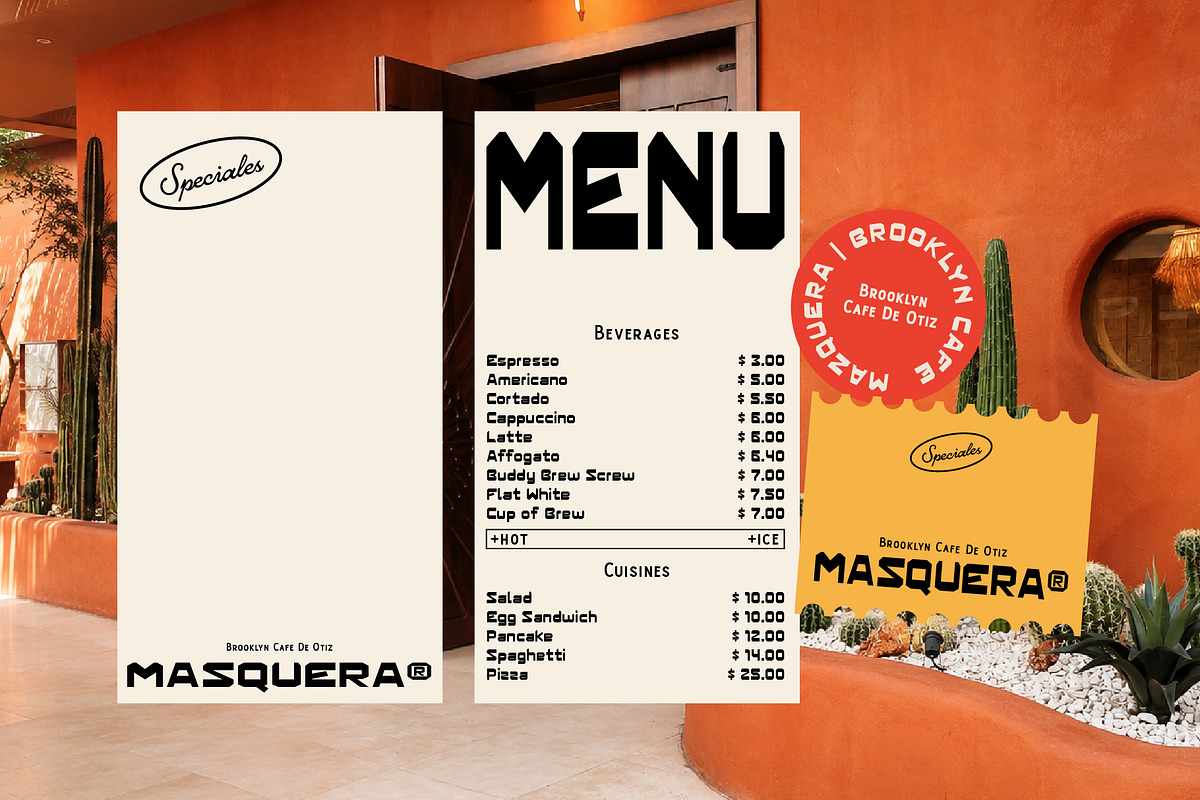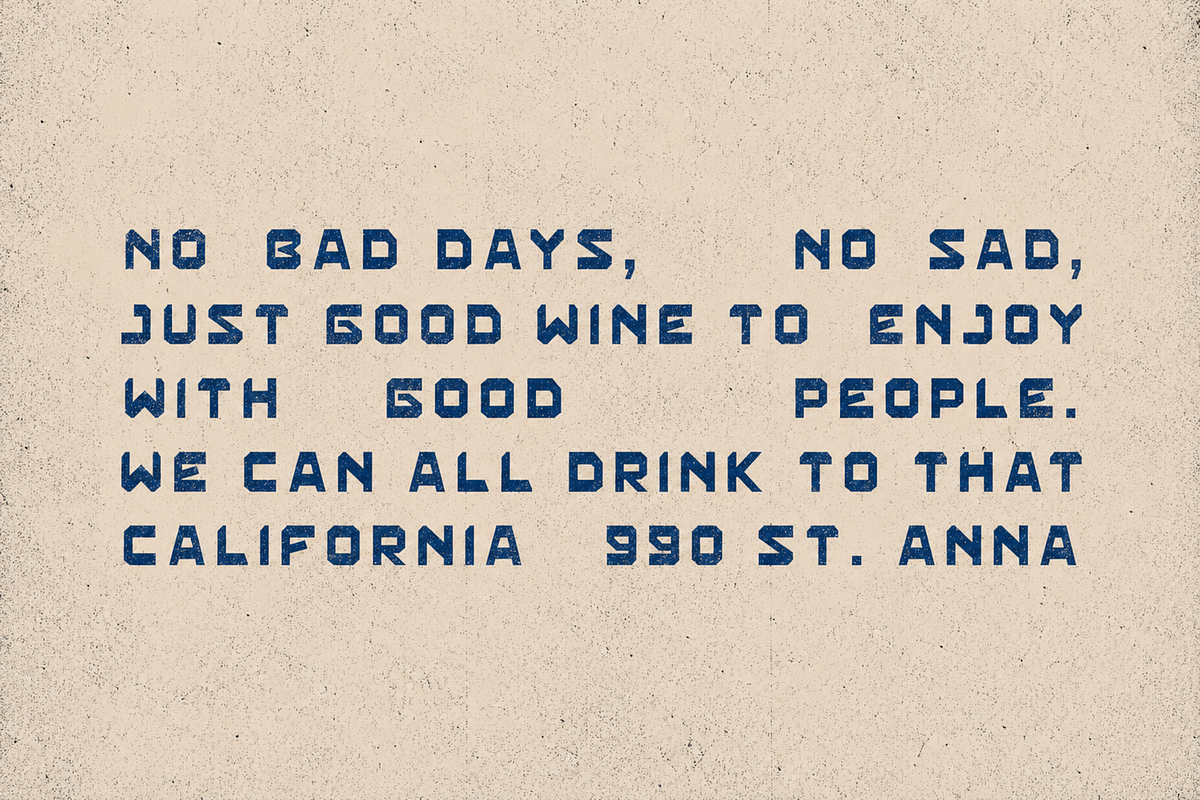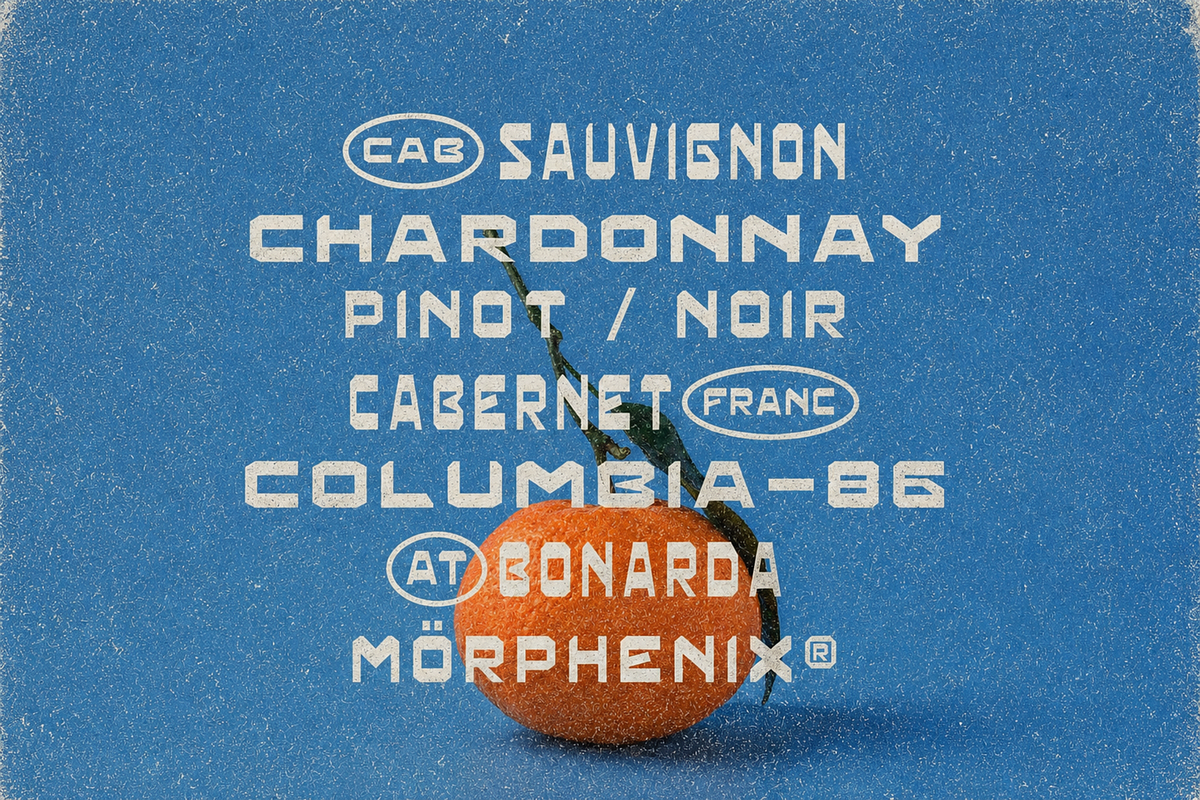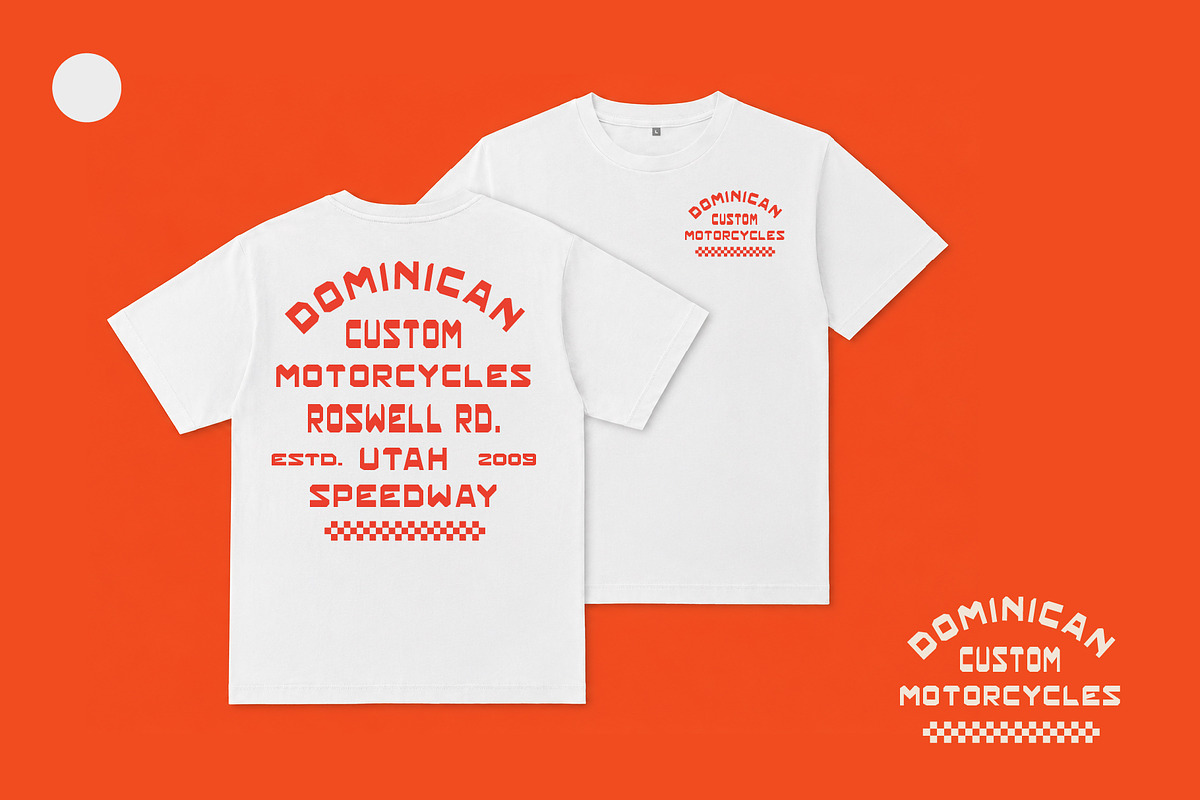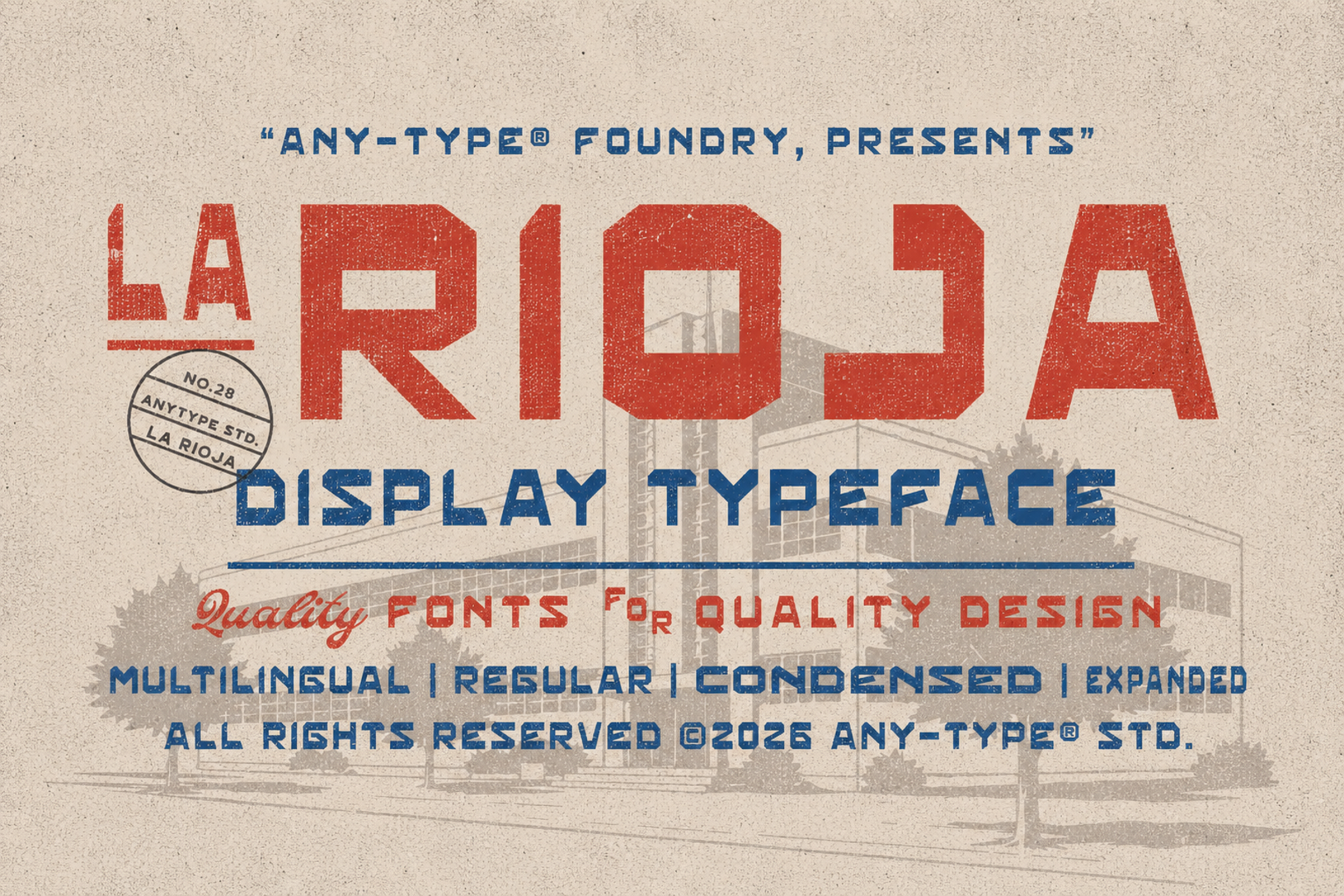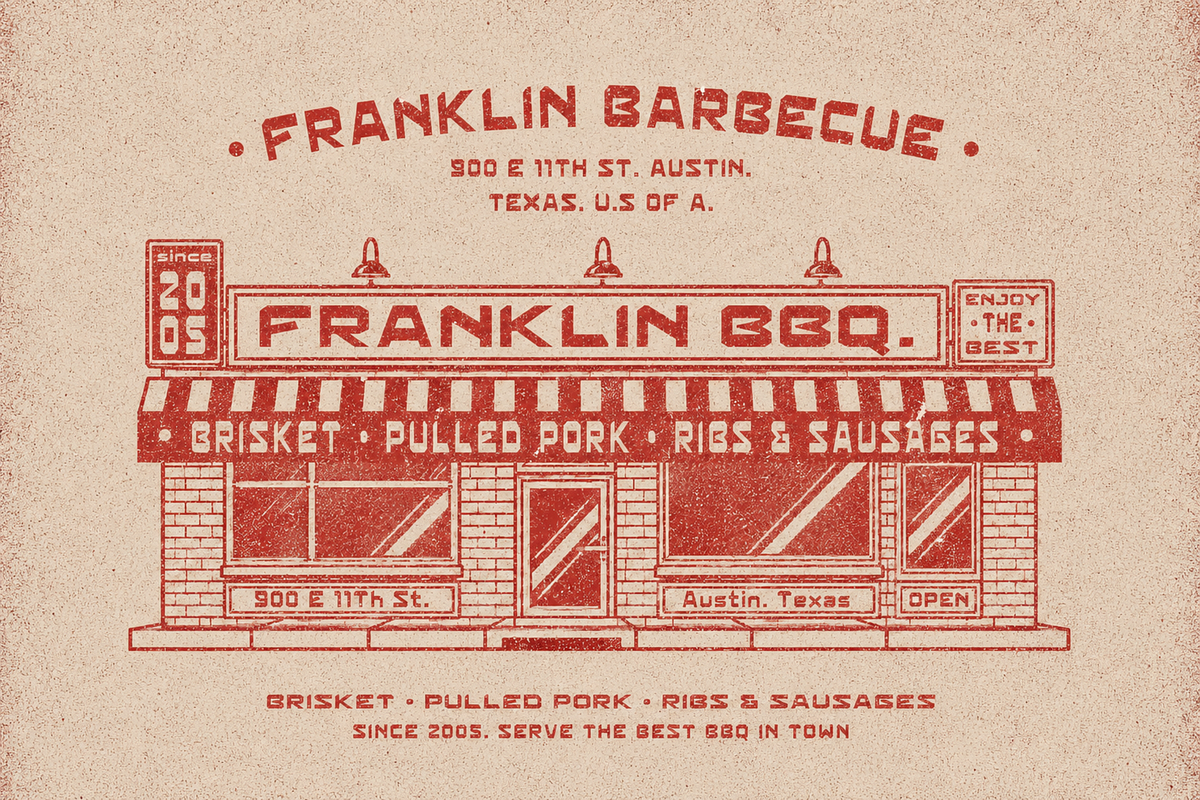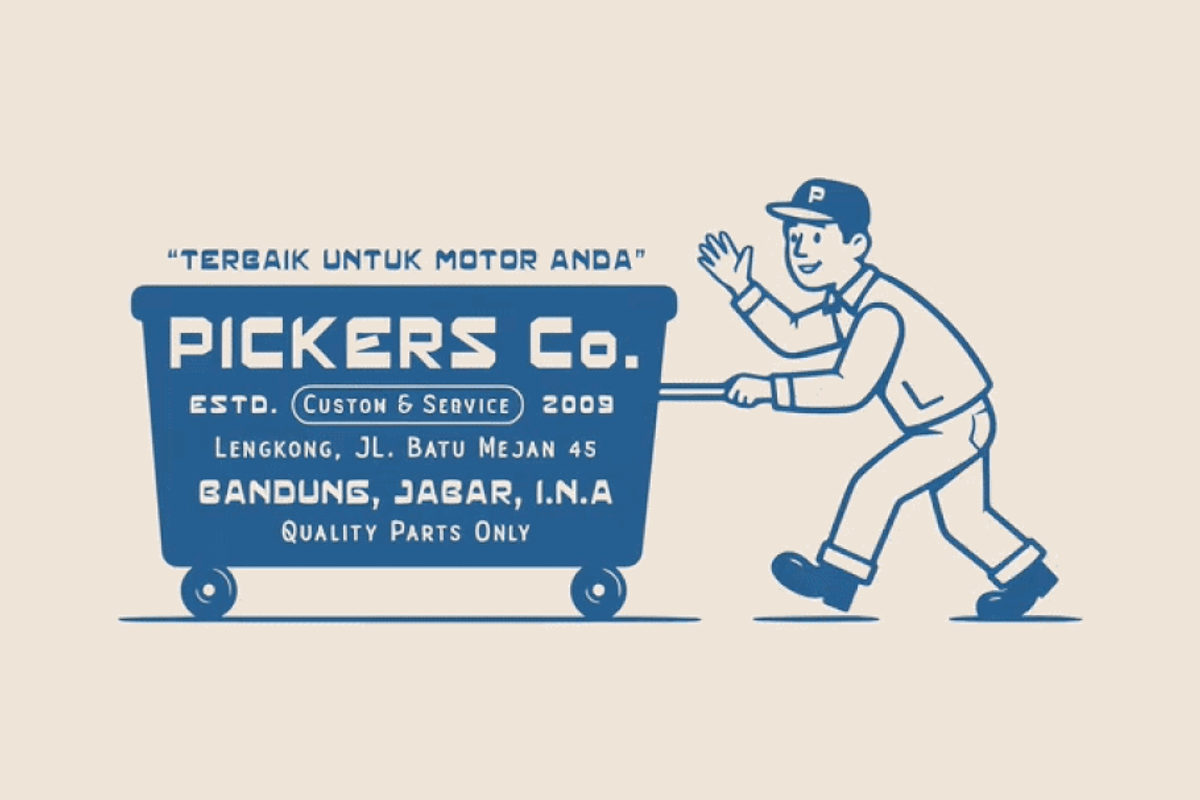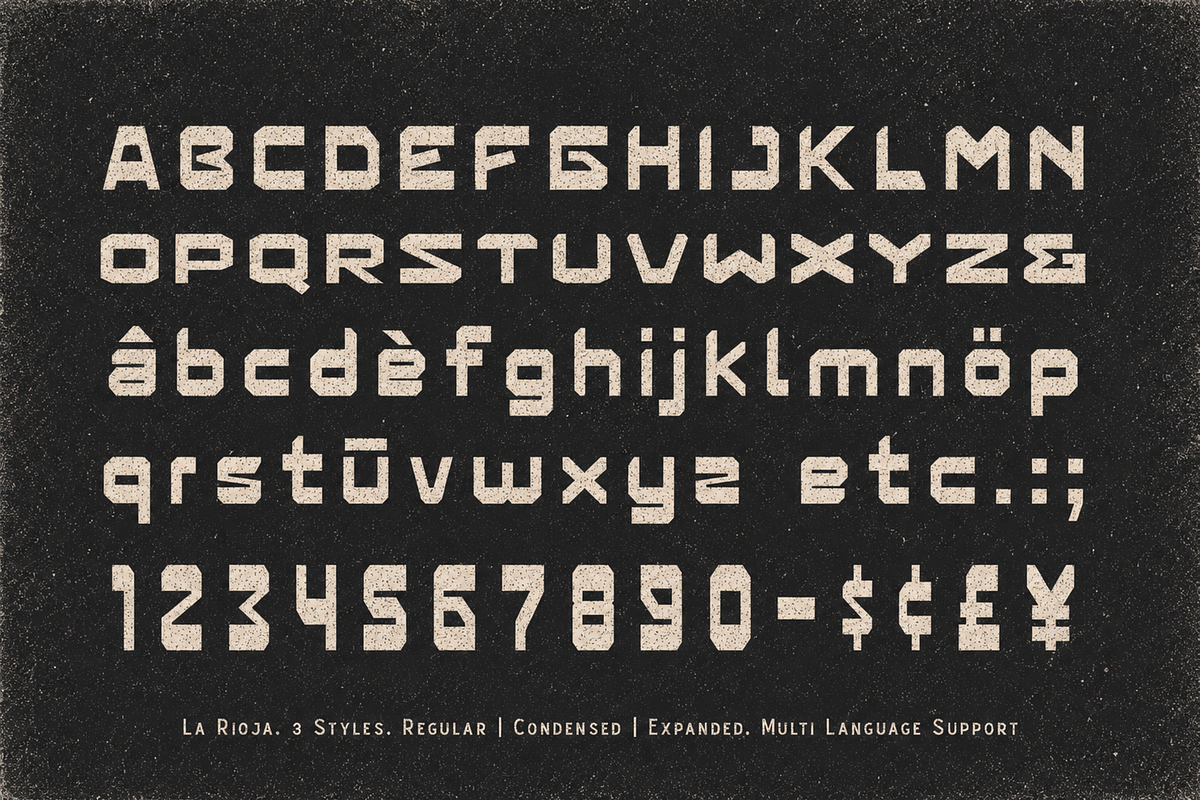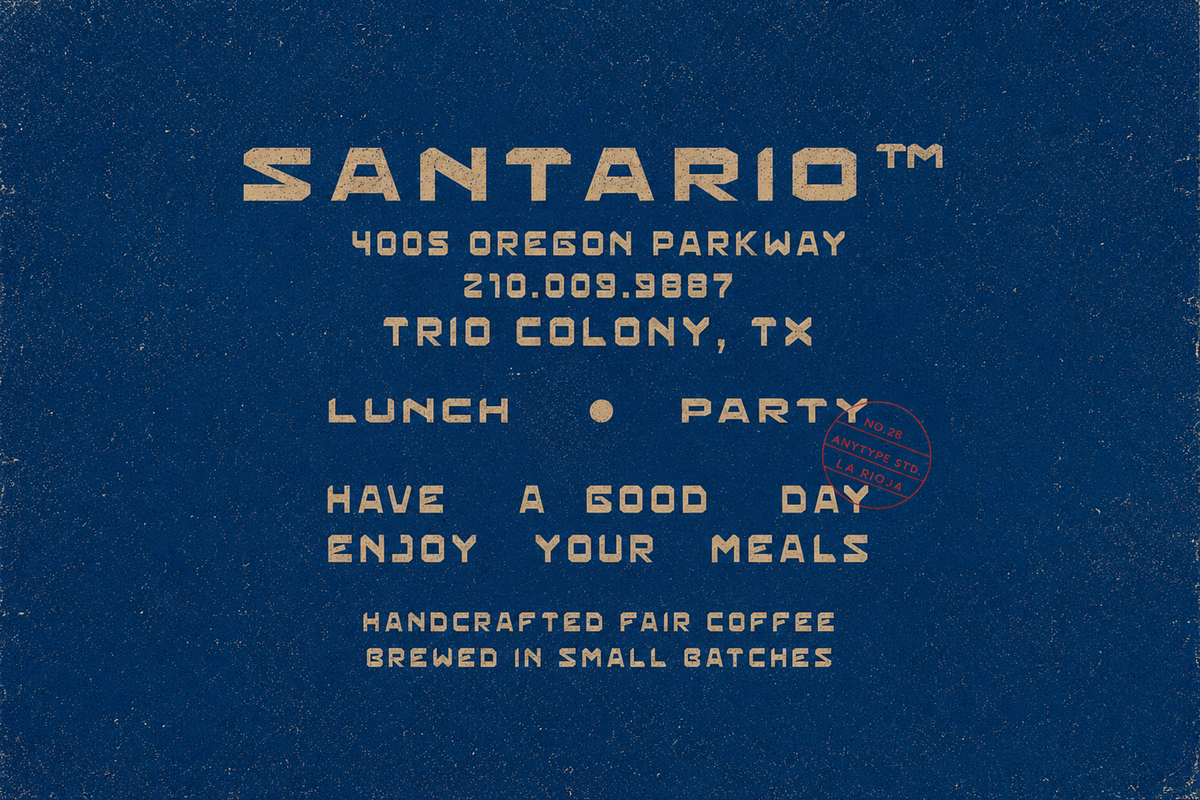
La Rioja — Retro Display Typeface
LA RIOJA is a bold display typeface inspired by vintage industrial signage, old factory markings, transportation labels, and classic utility lettering. With its strong geometric construction, squared corners, and rugged distressed texture, La Rioja delivers an authentic retro character that instantly captures attention.
Designed for designers who need a typeface with impact, La Rioja combines a sturdy architectural feel with a timeless vintage aesthetic. Whether you're creating logos, packaging, posters, apparel, branding, signage, or editorial headlines, this font adds confidence, personality, and a handcrafted worn-in look to every project.
The family includes multiple width variations, allowing you to create dynamic typography systems while maintaining a consistent visual identity. Its multilingual support makes it suitable for international branding and commercial design projects.
Regular Style
Condensed Style
Expanded Style
Uppercase & Lowercase Characters
Vintage Distressed Texture
Vintage Branding
Retro Logos
Apparel & Merchandise
Restaurant & Bar Branding
Sports Graphics
Signage & Wayfinding
Poster Design
Editorial Headlines
La Rioja brings the spirit of classic industrial typography into modern design—bold, authentic, and built to stand out.